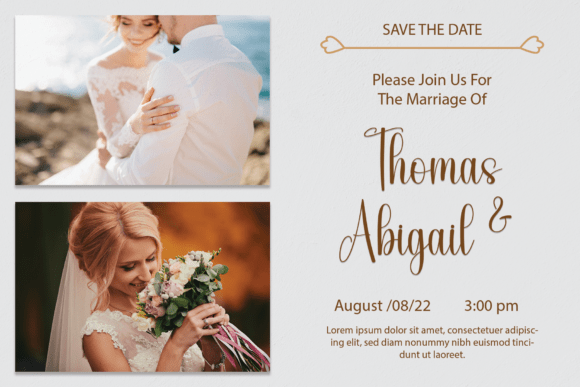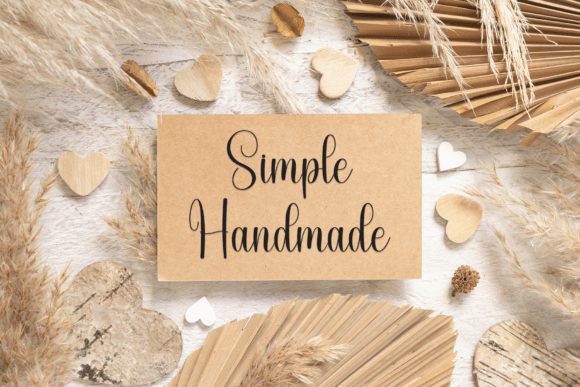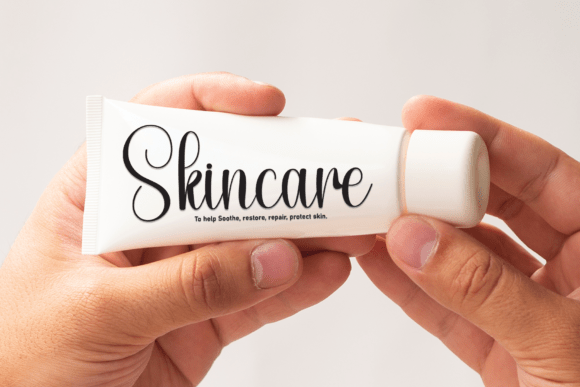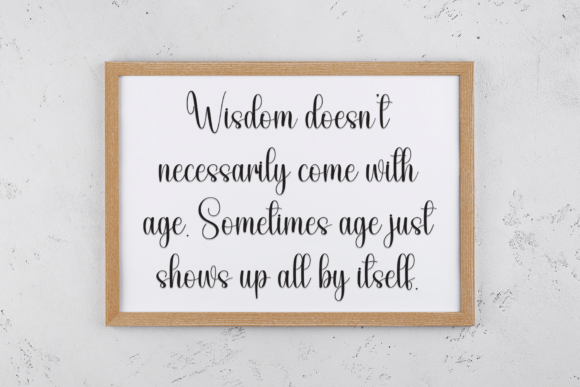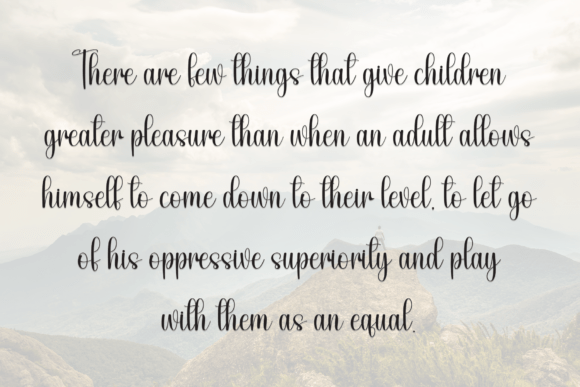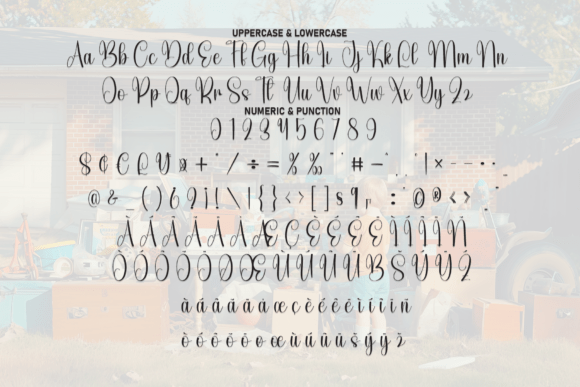
Introducing Detailed Font: Elevate Your Designs with Elegance and Sophistication
In the world of typography, fonts play a crucial role in conveying the tone and personality of a brand or design. For those seeking a sophisticated and airy creative script font, Detailed is an exceptional choice. This beautiful script font strikes a perfect balance between elegant calligraphic structures and a contemporary aesthetic, making it ideal for high-end designs.
What Makes Detailed Font Stand Out?
Detailed font is categorized as a beautiful script font, featuring a traditional slanted axis that gives it a classic, yet refined look. One of its standout features is the dramatic contrast between thick, grounded downstrokes and delicate, wispy hairline connectors. This contrast adds a level of sophistication and elegance, making it perfect for designs that require a touch of luxury.
Characteristics of Detailed Font
- Elegant Calligraphic Structures: Detailed font boasts traditional calligraphic elements, giving it a refined and classic feel.
- Contemporary Aesthetic: Despite its classic roots, the font has a modern twist that makes it suitable for contemporary designs.
- Traditional Slanted Axis: The font features a slanted axis, which adds to its elegance and sophistication.
- Dramatic Contrast: The contrast between thick downstrokes and delicate hairline connectors creates a visually appealing effect.
Use Cases for Detailed Font
Given its sophisticated and elegant nature, Detailed font is perfect for a variety of high-end design projects. Some of the ideal use cases include:
- High-End Wedding Stationery: Add a touch of luxury and romance to wedding invitations, programs, and other stationery.
- Boutique Brand Identities: Elevate your brand’s visual identity with a sophisticated font that exudes elegance and refinement.
- Luxury Beauty Packaging: Make your beauty products stand out with packaging that features a high-end, elegant font.
- Professional Watermarks: Add a touch of sophistication to your digital images with a beautiful, elegant watermark.
Why Choose Detailed Font?
With so many fonts available, why choose Detailed? Here are a few compelling reasons:
- Uniqueness: Detailed font offers a unique blend of classic and modern elements, making it stand out from more traditional fonts.
- Versatility: Its elegant and sophisticated nature makes it suitable for a wide range of design projects.
- High-End Look: The font’s luxurious feel makes it perfect for designs that require a high-end look and feel.
Tips for Using Detailed Font Effectively
To get the most out of Detailed font, consider the following tips:
- Pair with Simple Fonts: Pair Detailed font with simpler fonts to create a striking contrast and add visual interest to your design.
- Use for Headings: Use Detailed font for headings and titles to add a touch of elegance and sophistication.
- Experiment with Colors: Don’t be afraid to experiment with different colors to find the perfect match for your design.
In conclusion, Detailed font is an exceptional choice for designers and crafters seeking a sophisticated and elegant script font. Its unique blend of classic and modern elements, combined with its versatility and high-end look, make it perfect for a wide range of design projects. Whether you’re creating high-end wedding stationery, boutique brand identities, luxury beauty packaging, or professional watermarks, Detailed font is sure to elevate your designs to the next level.